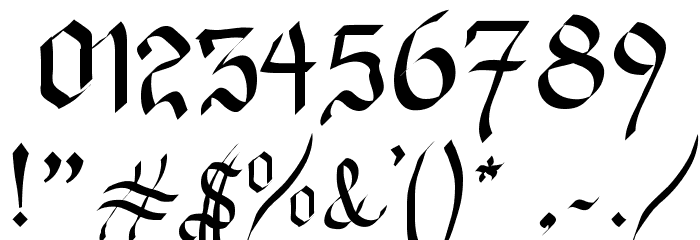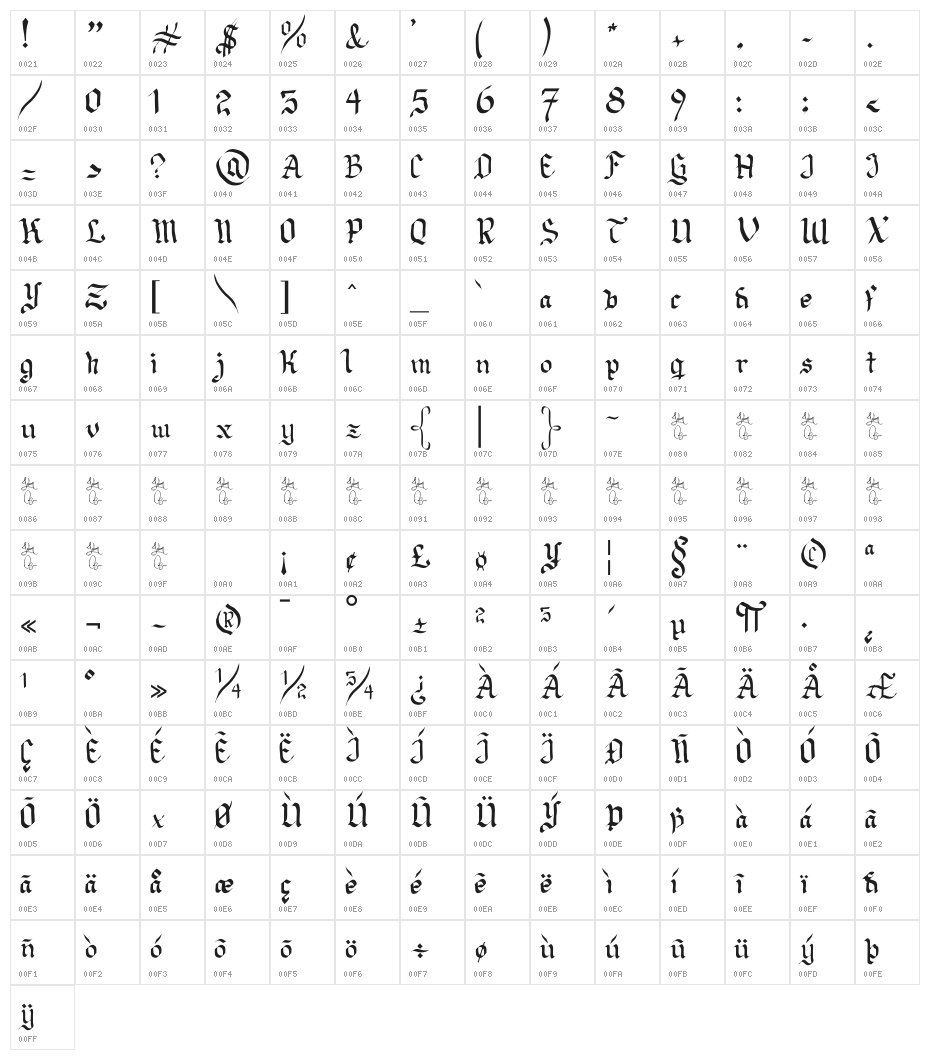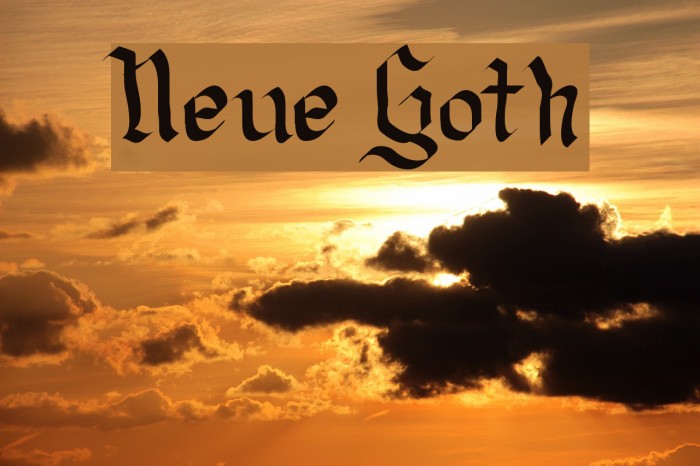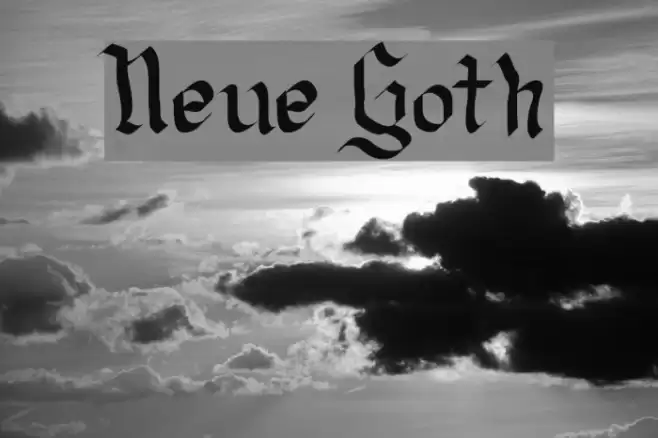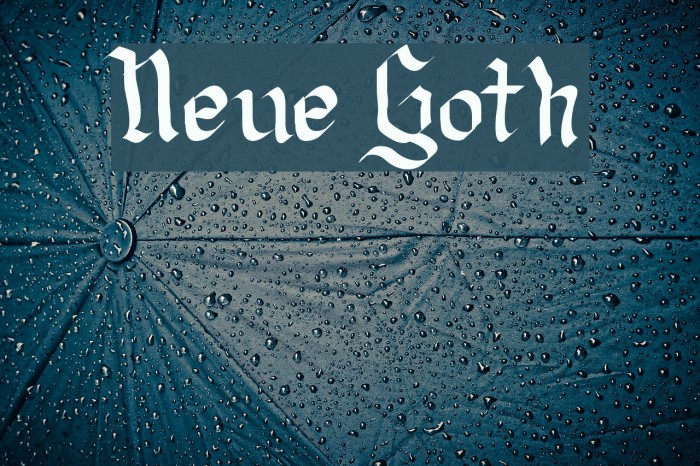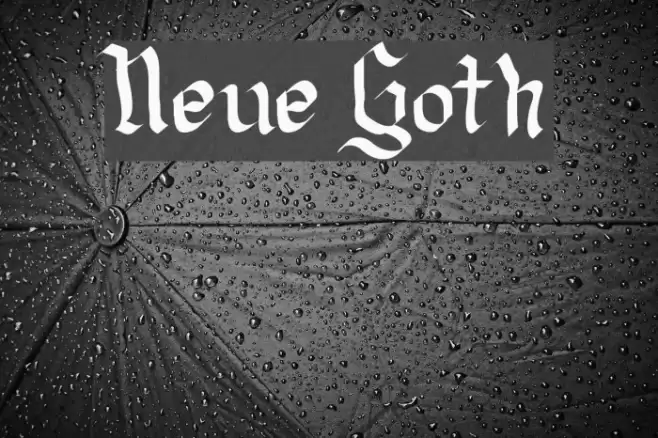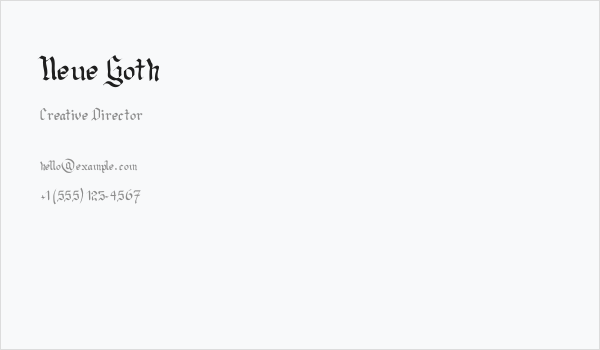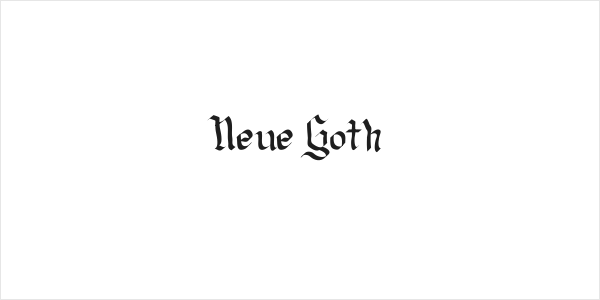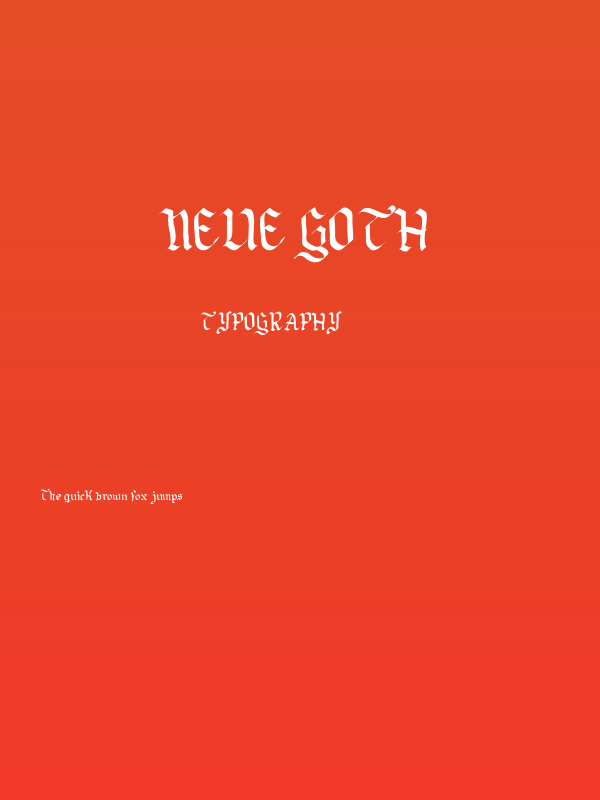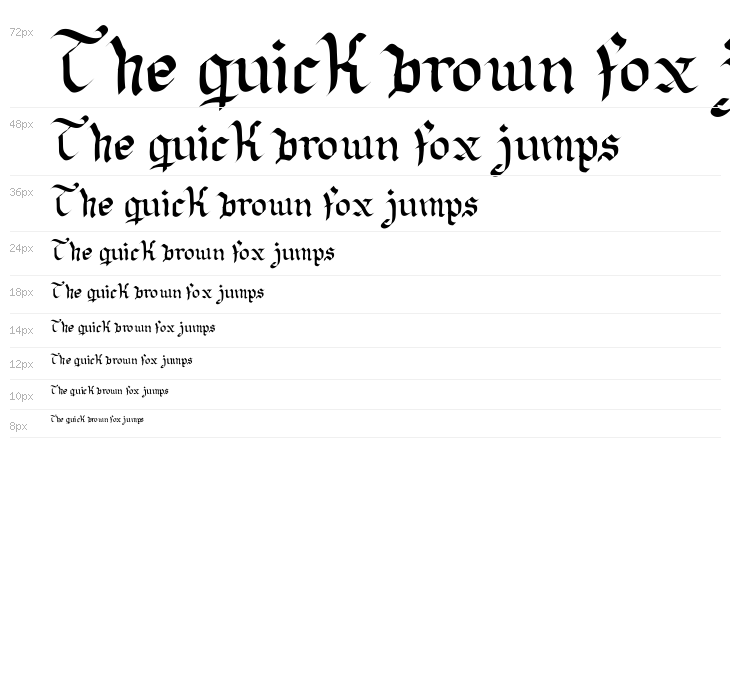
Neue Goth Font
Neue Goth Description
This font exudes a classic and historical aura, reminiscent of traditional Gothic script. It features sharp, angular lines and intricate detailing, giving it a distinct medieval appearance. The uppercase letters are bold and commanding, while the lowercase letters maintain a consistent style with slightly more curves. Numbers and special characters are designed to match the overall aesthetic, providing a cohesive look. The font's blackletter style is both decorative and legible, making it suitable for projects that require a touch of elegance and tradition.
| Use Case | Headlines, Logos, Decorative purposes |
| Proposed Projects | Ideal for historical documents, book covers, posters, and branding that requires a traditional or medieval touch. |